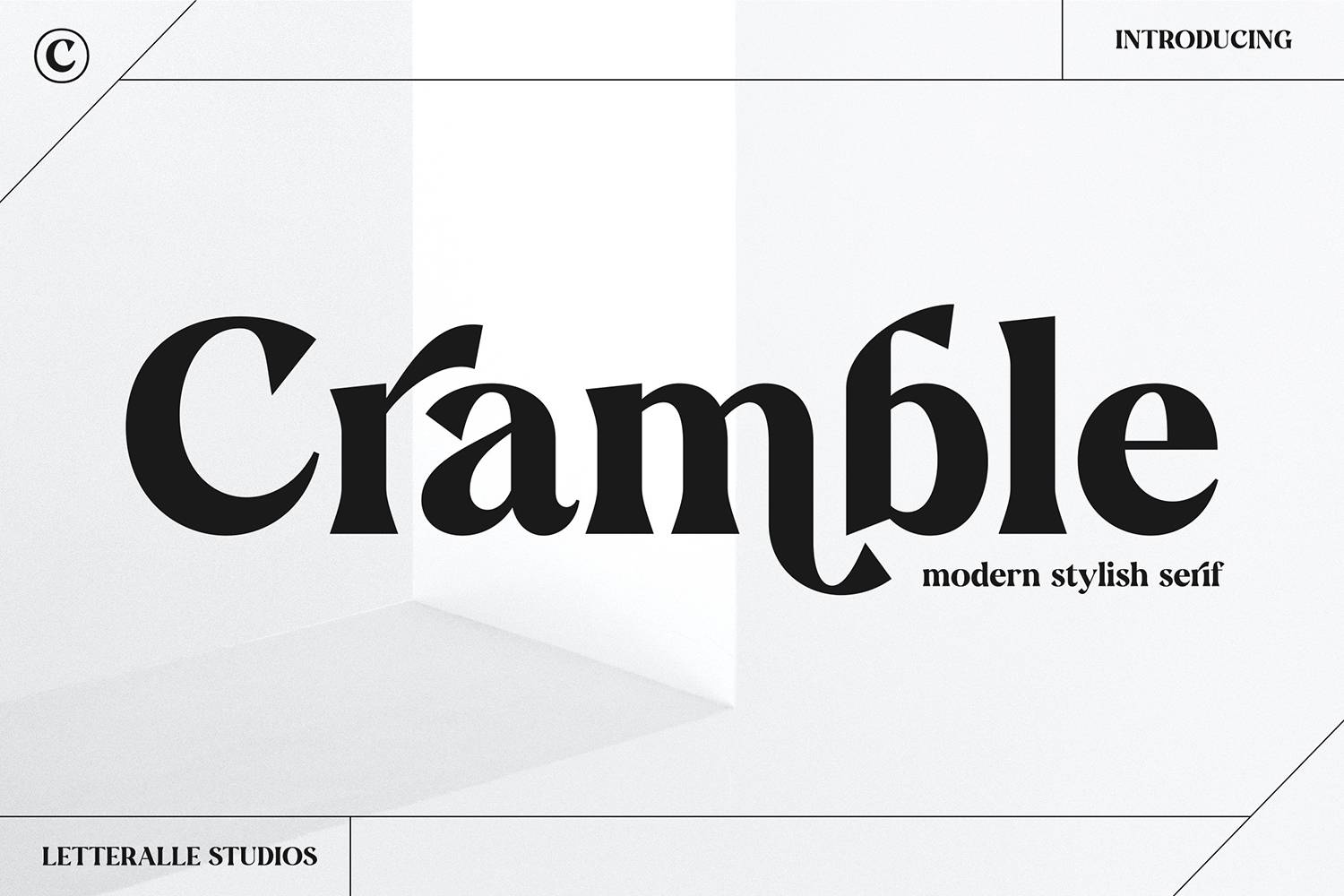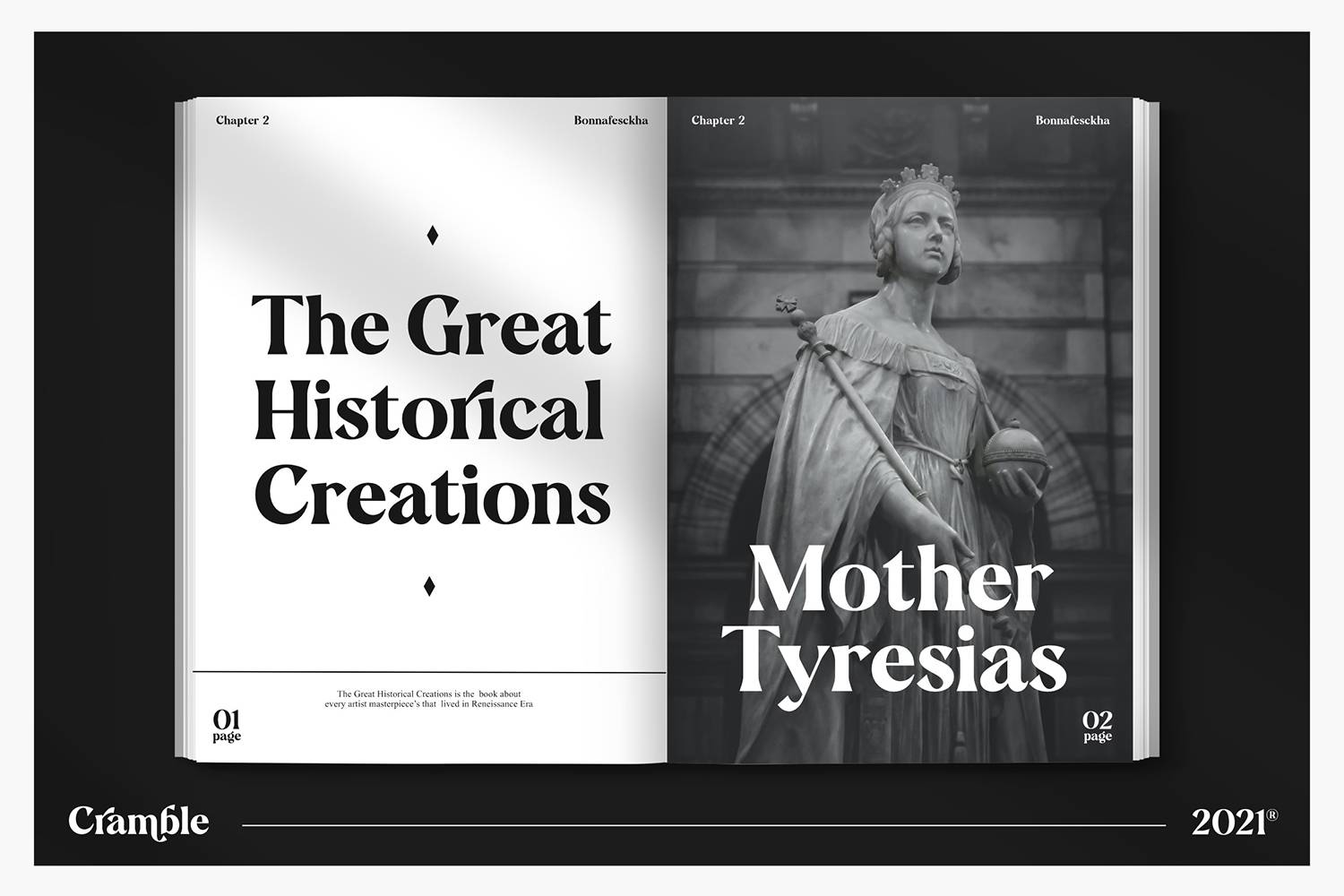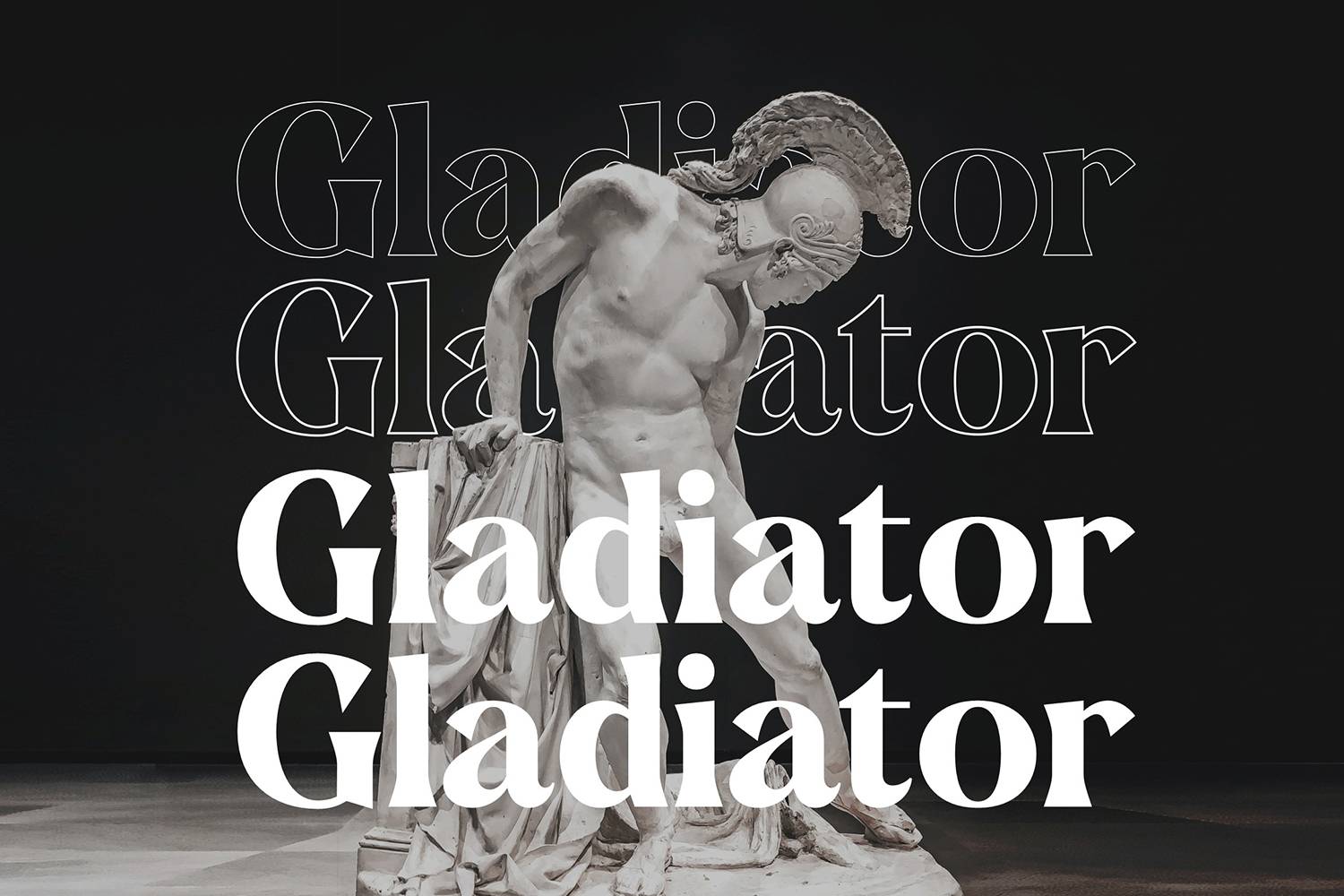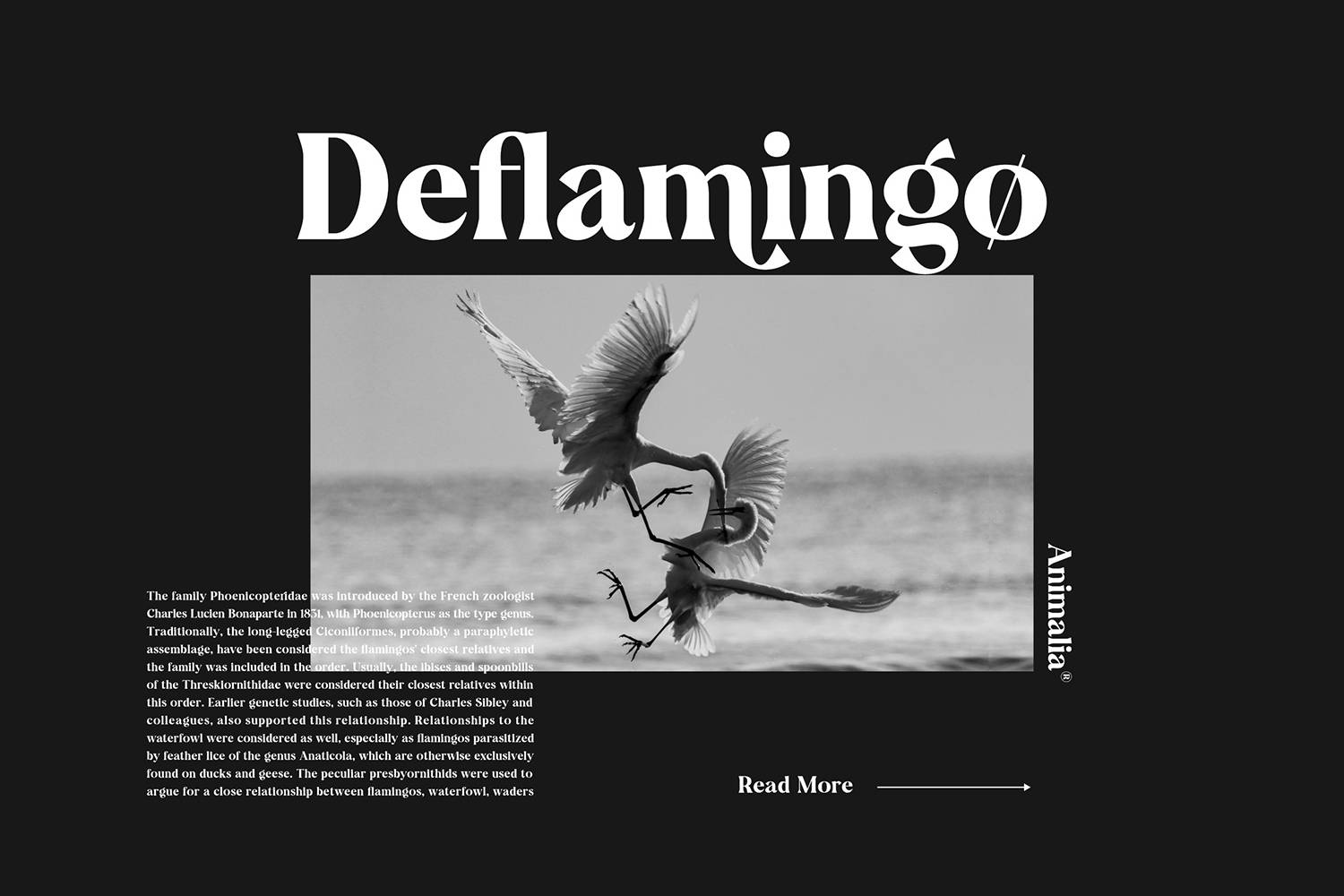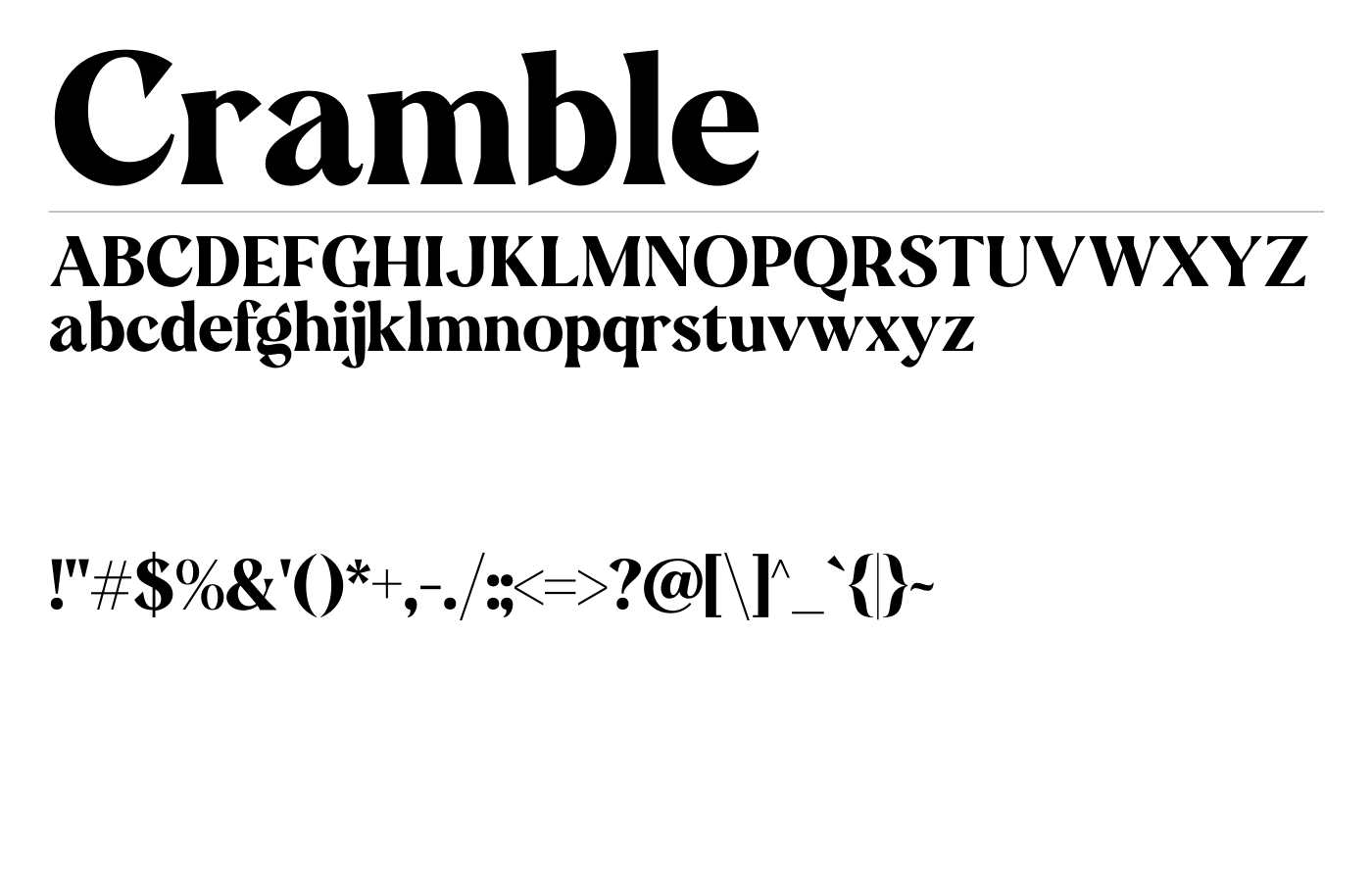
Cramble is a bold serif font with a modern twist, featuring strong contrast between thick and thin strokes and sharp, angular serifs that give it a distinctive, edgy character. Its condensed width and high x-height make it striking and readable, ideal for impactful headlines, logos, and editorial use where a blend of elegance and uniqueness is desired. This font works well for luxury and fashion branding, as well as any design that aims to make a confident, stylish statement.
Cramble Font
About Cramble Font
| Font family | Cramble Font |
| Release date | 2021-12-09 |
| Designer | Annas Alam Yahya |